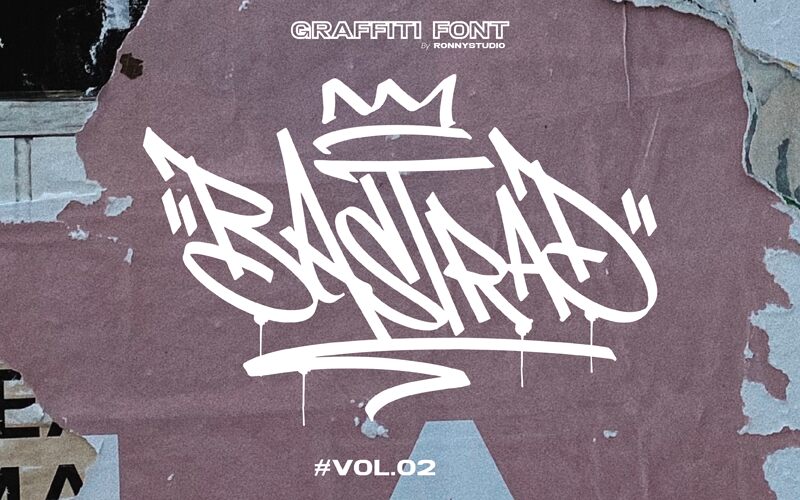
Bastrad Vol. 02 by Ronny Studio is the perfect graffiti font for any project that requires a bold, edgy look. With its semi-light weight and condensed width, this typeface is ideal for posters, flyers, and social media graphics that need to make a statement. Its gritty style evokes the energy of street art and rebellious youth culture. Use it to add attitude to album covers, event promotions, or clothing designs. Bastrad Vol. 02 is sure to grab attention and leave a lasting impression on your audience.
Bastrad Vol.02